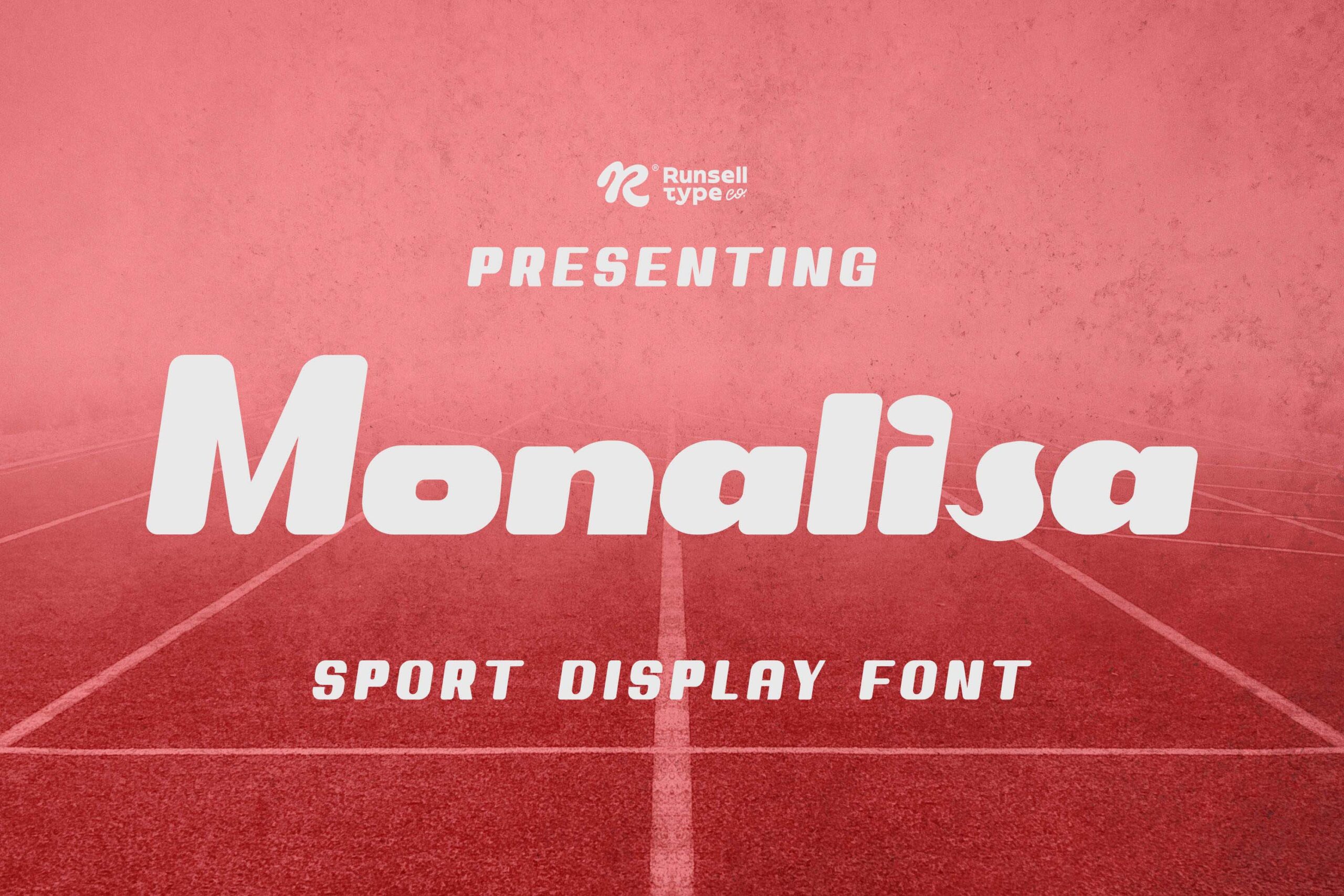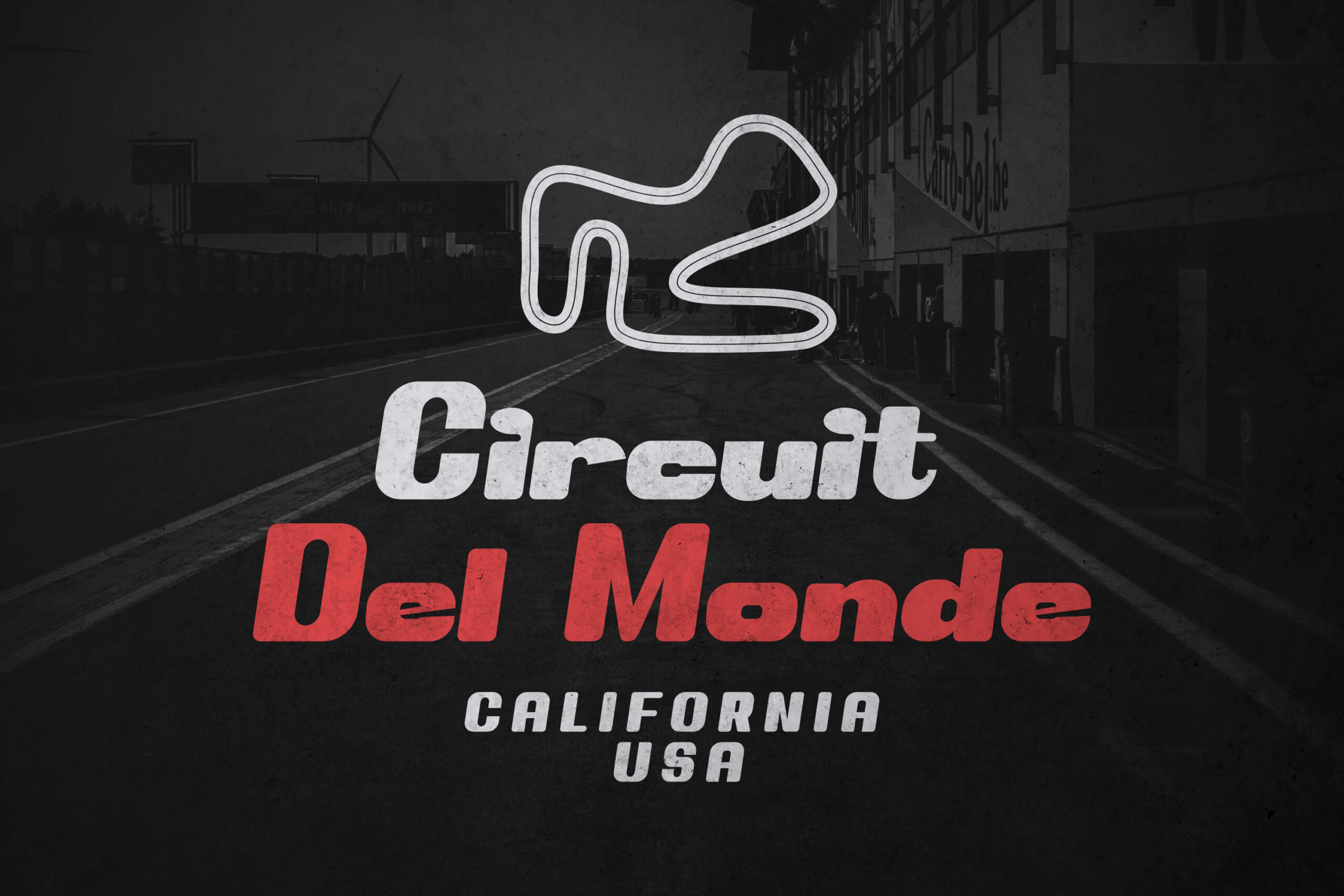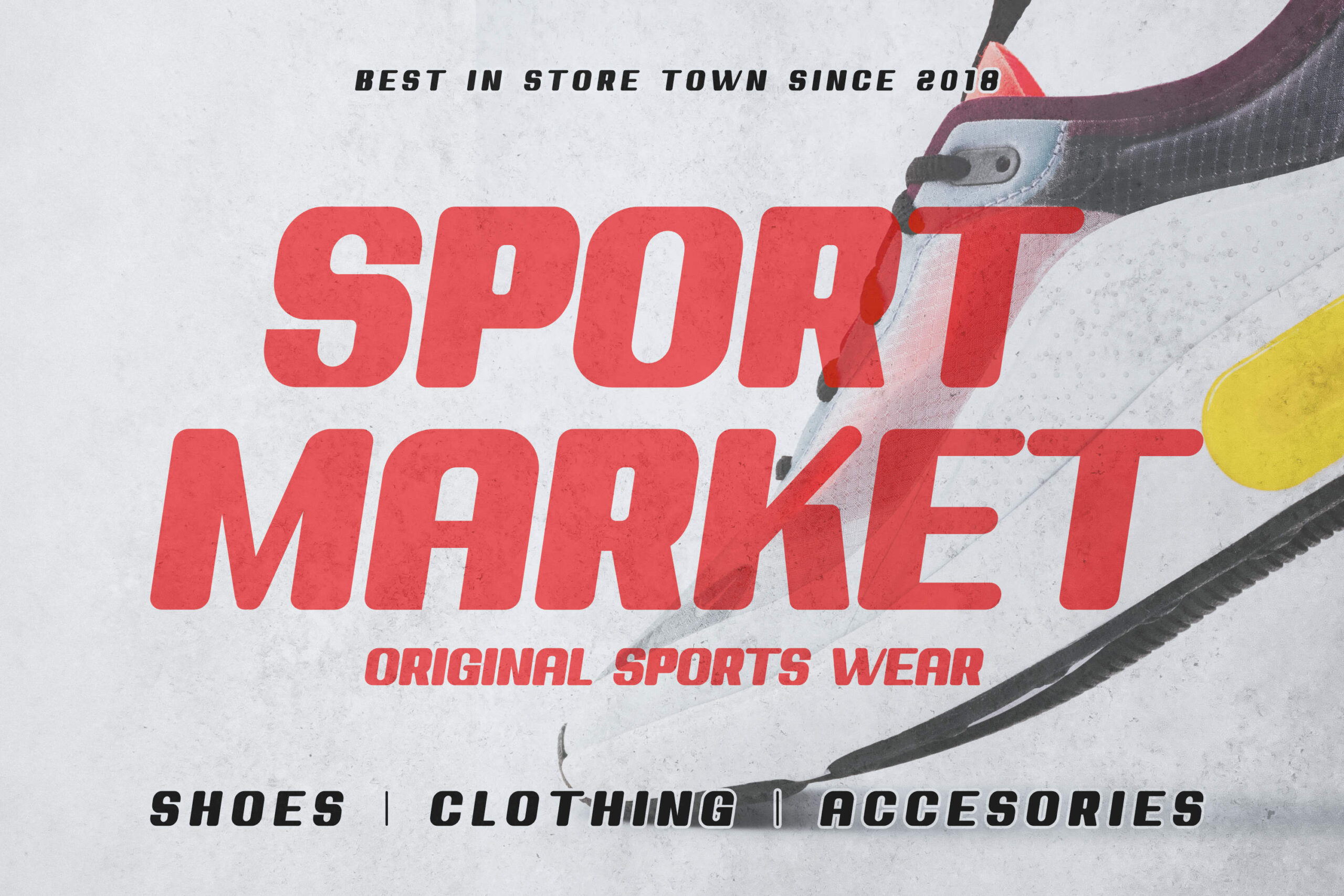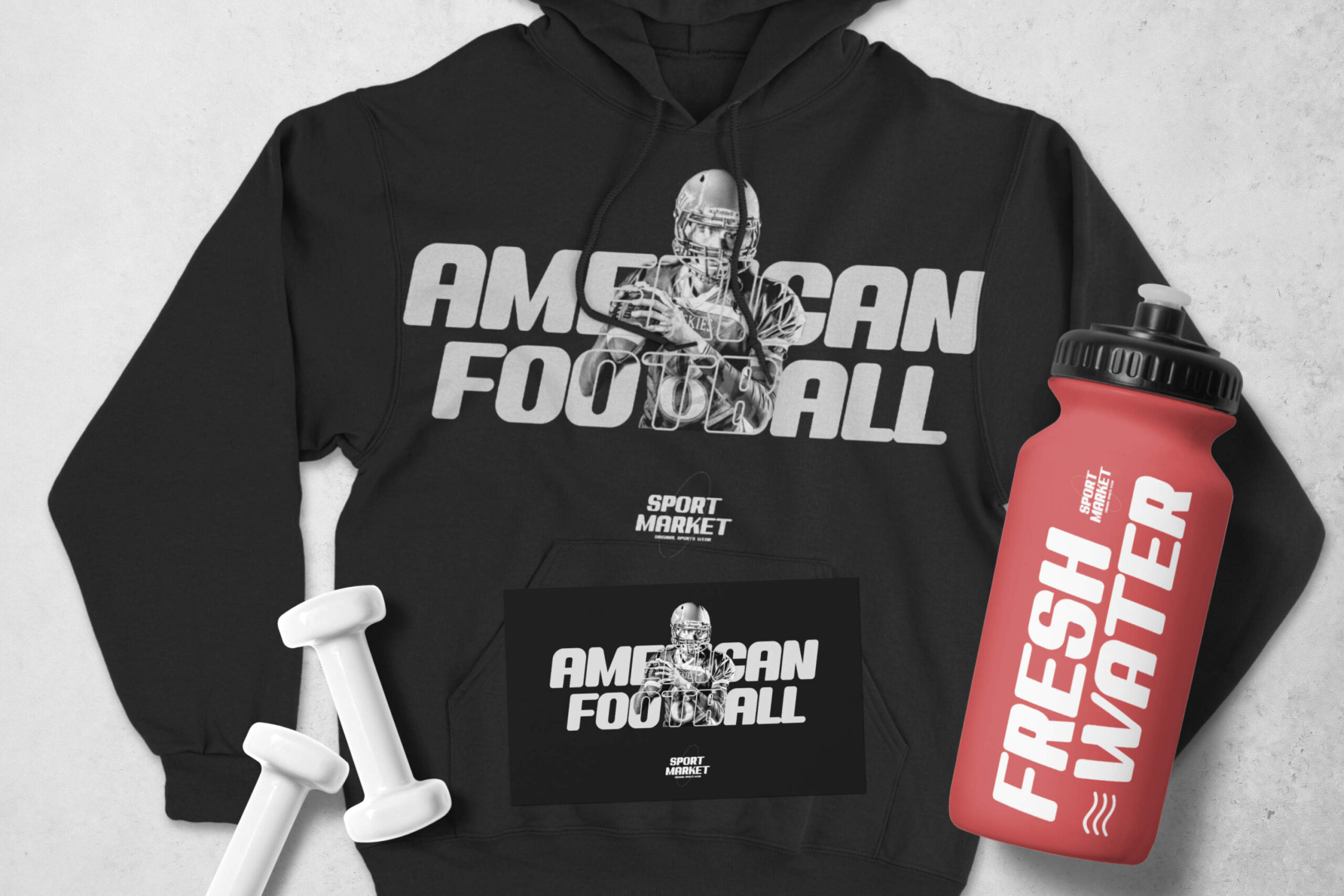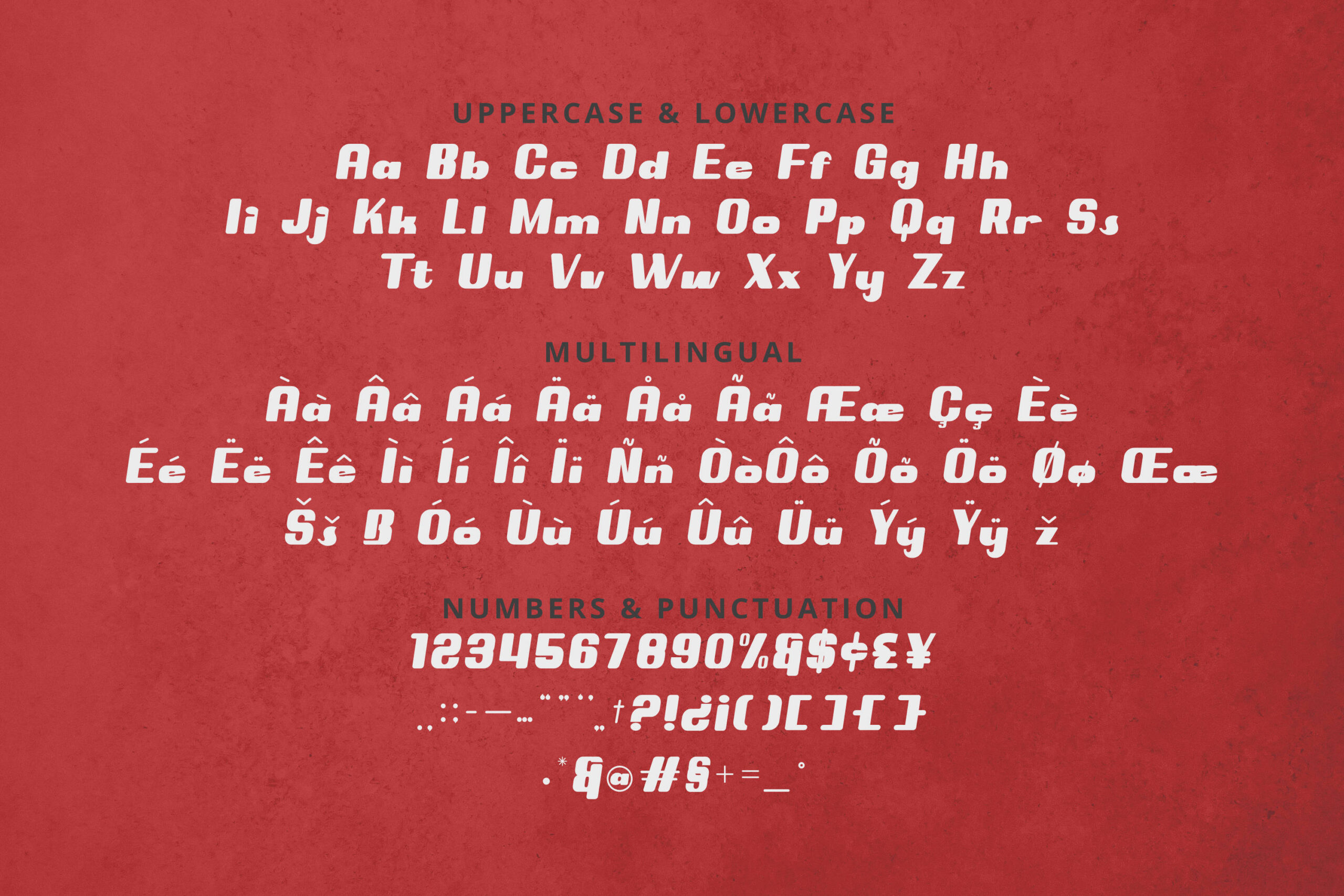
Monalisa
Monalisa is a bold and energetic sport display font that combines strength with personality. Its rounded yet compact letterforms deliver a punchy and modern visual identity, perfect for athletic branding, racing event titles, or urban streetwear. The dynamic look captures motion and intensity, making it ideal for impactful visual communication.
This font supports uppercase, lowercase, multilingual characters, numerals, and a wide range of punctuation, ensuring maximum versatility across languages and platforms. Whether used on merchandise, team jerseys, or promotional materials, Monalisa guarantees a confident and sporty vibe that stands out.